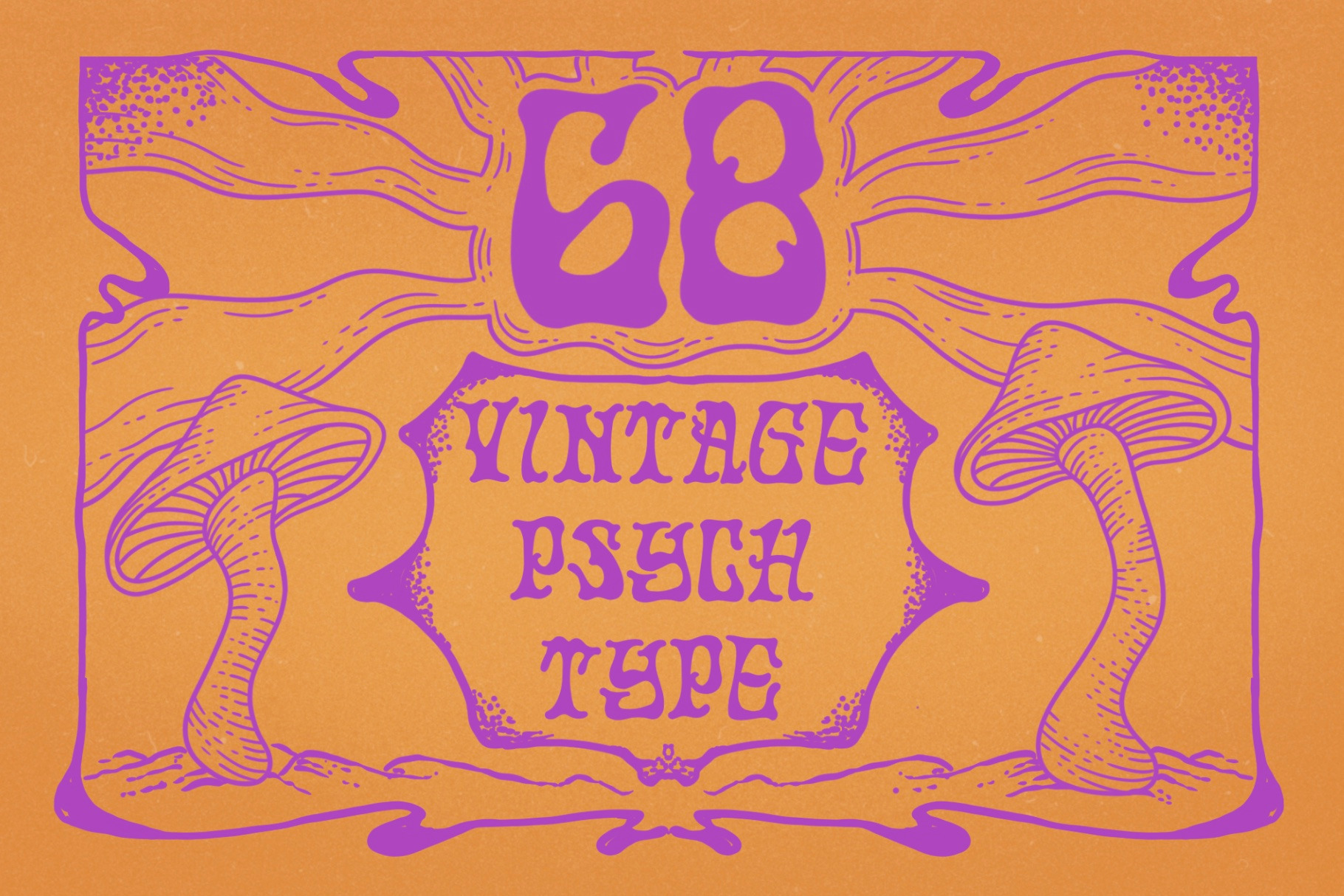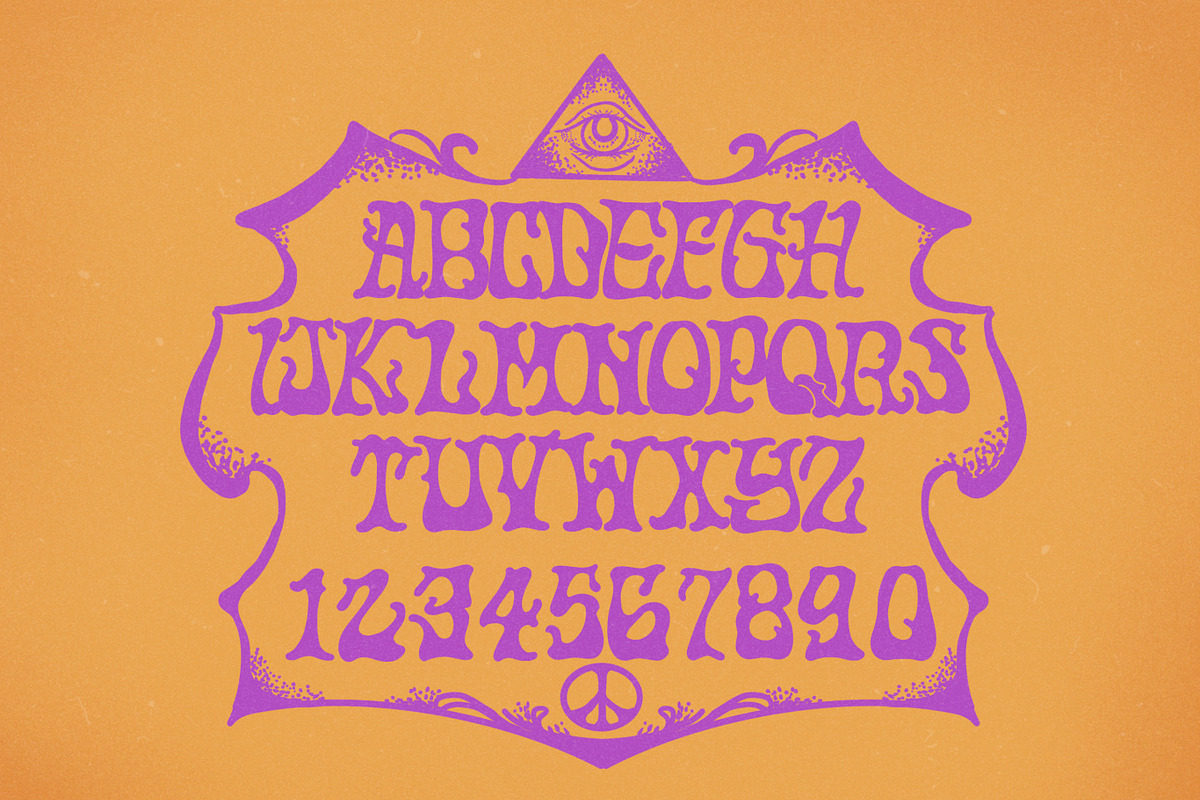
68' Psych Font Designed By TWRUSHING
A vintage type dedicated to the great anonymous posters made by the true heads of the 60's and 70's. Contains all capitals and numerals. Both lined and filled. Meant to keep things light and groovy.